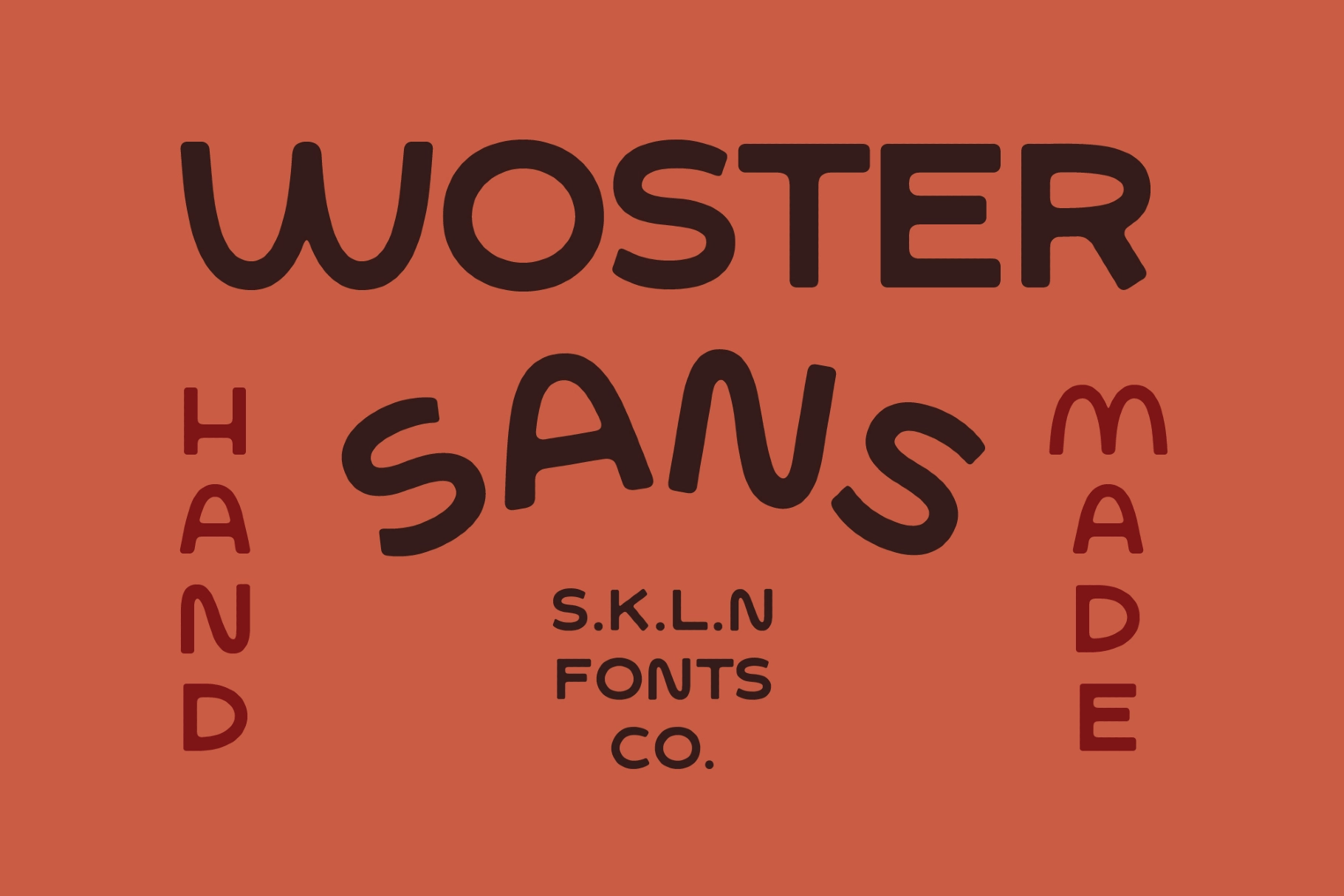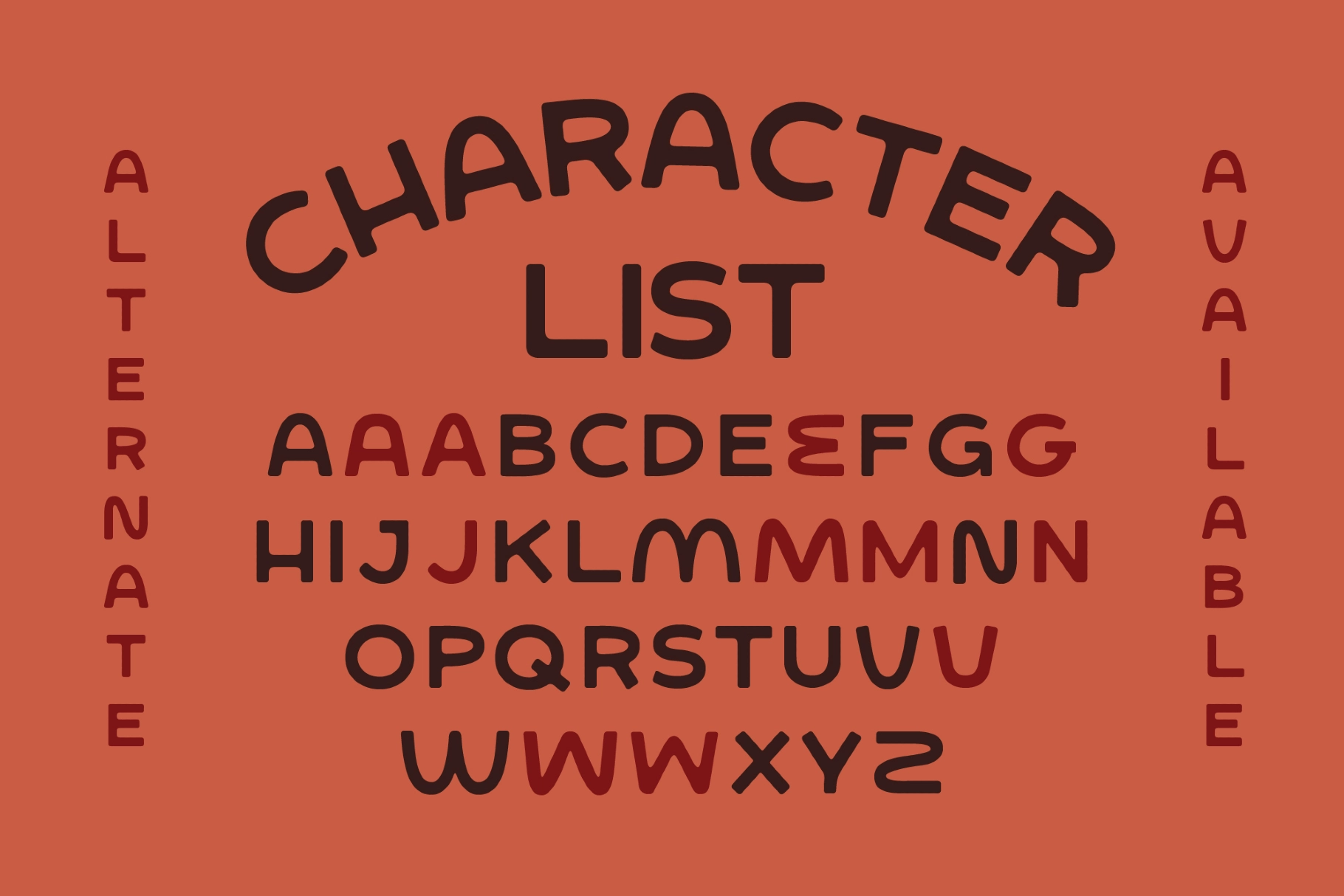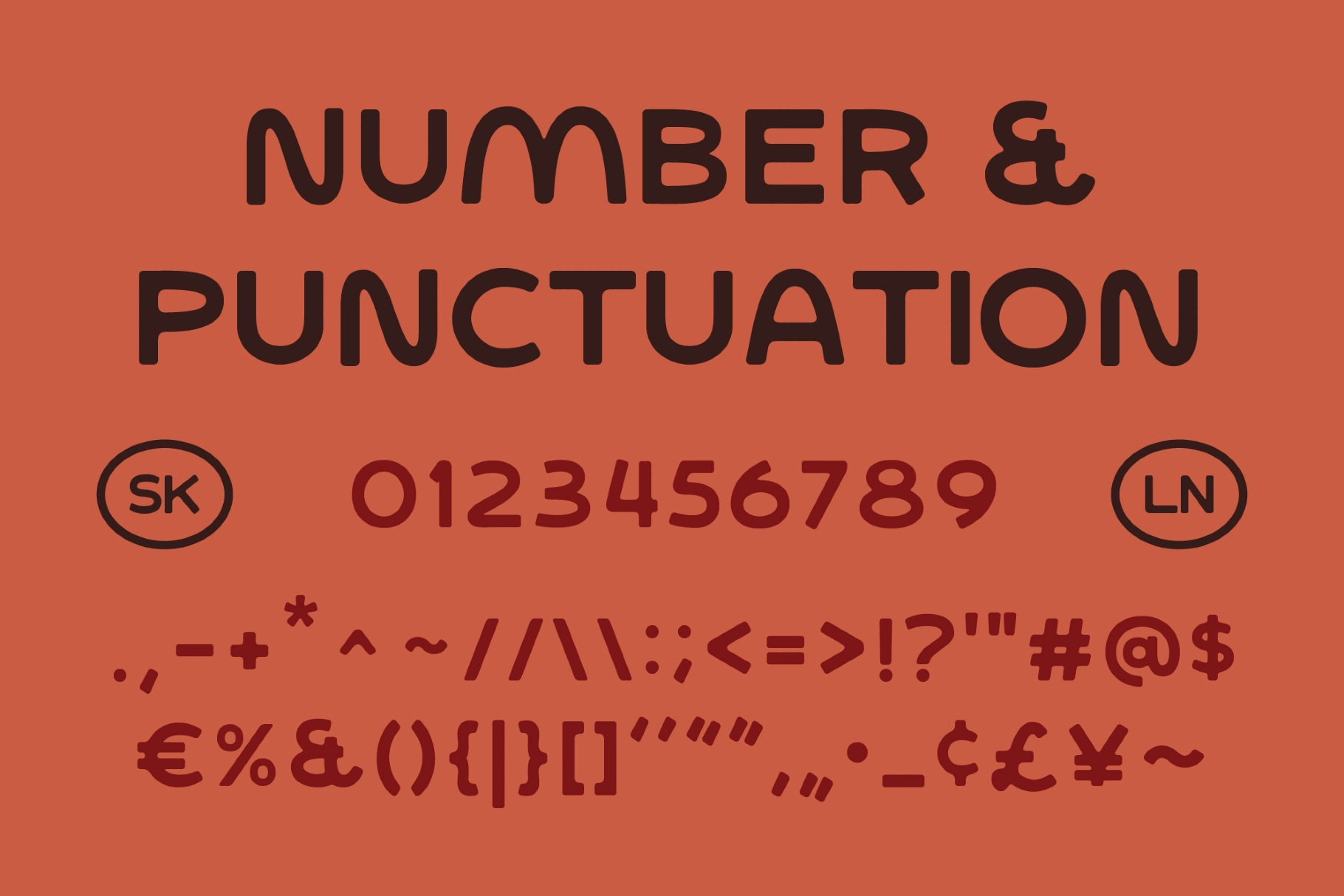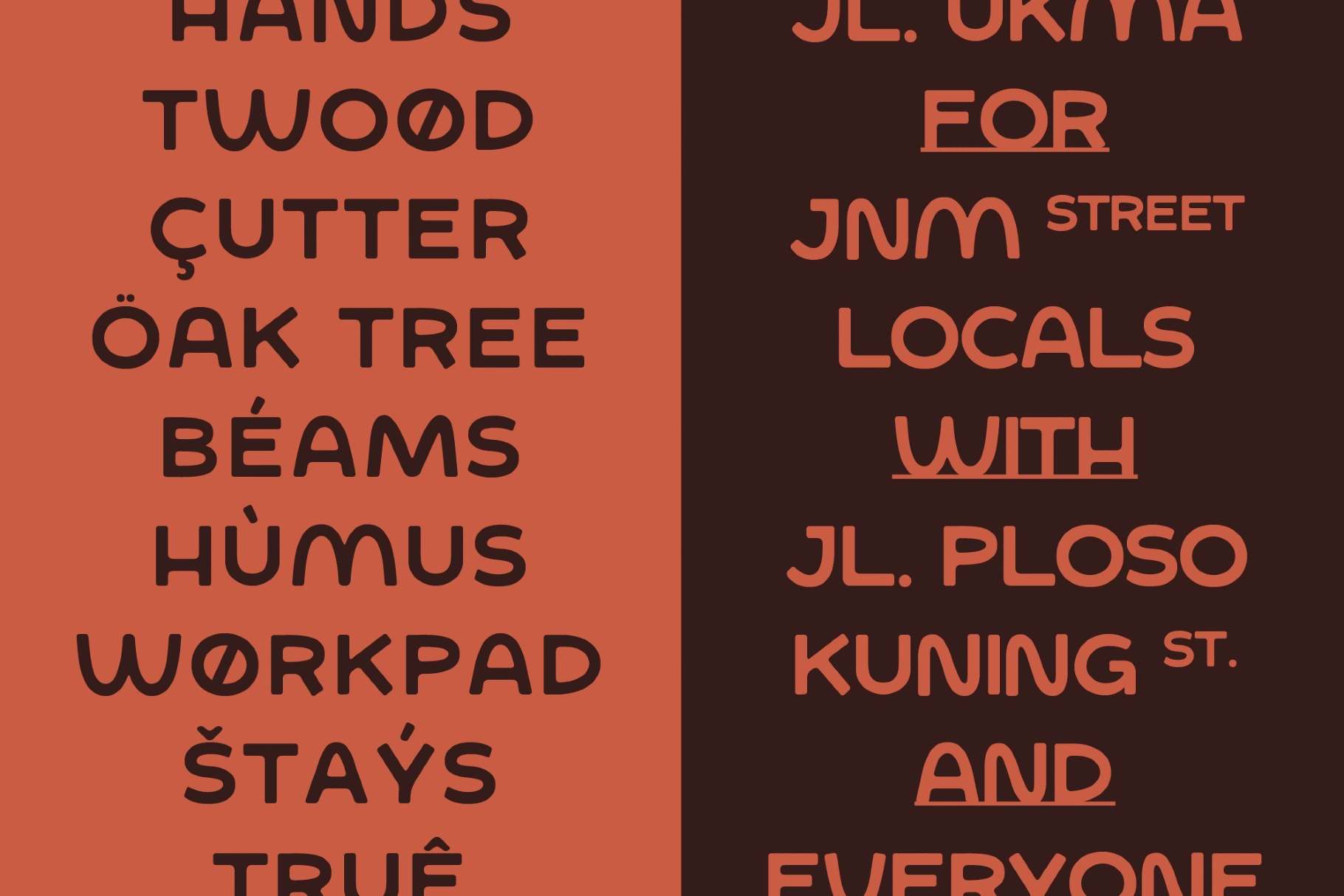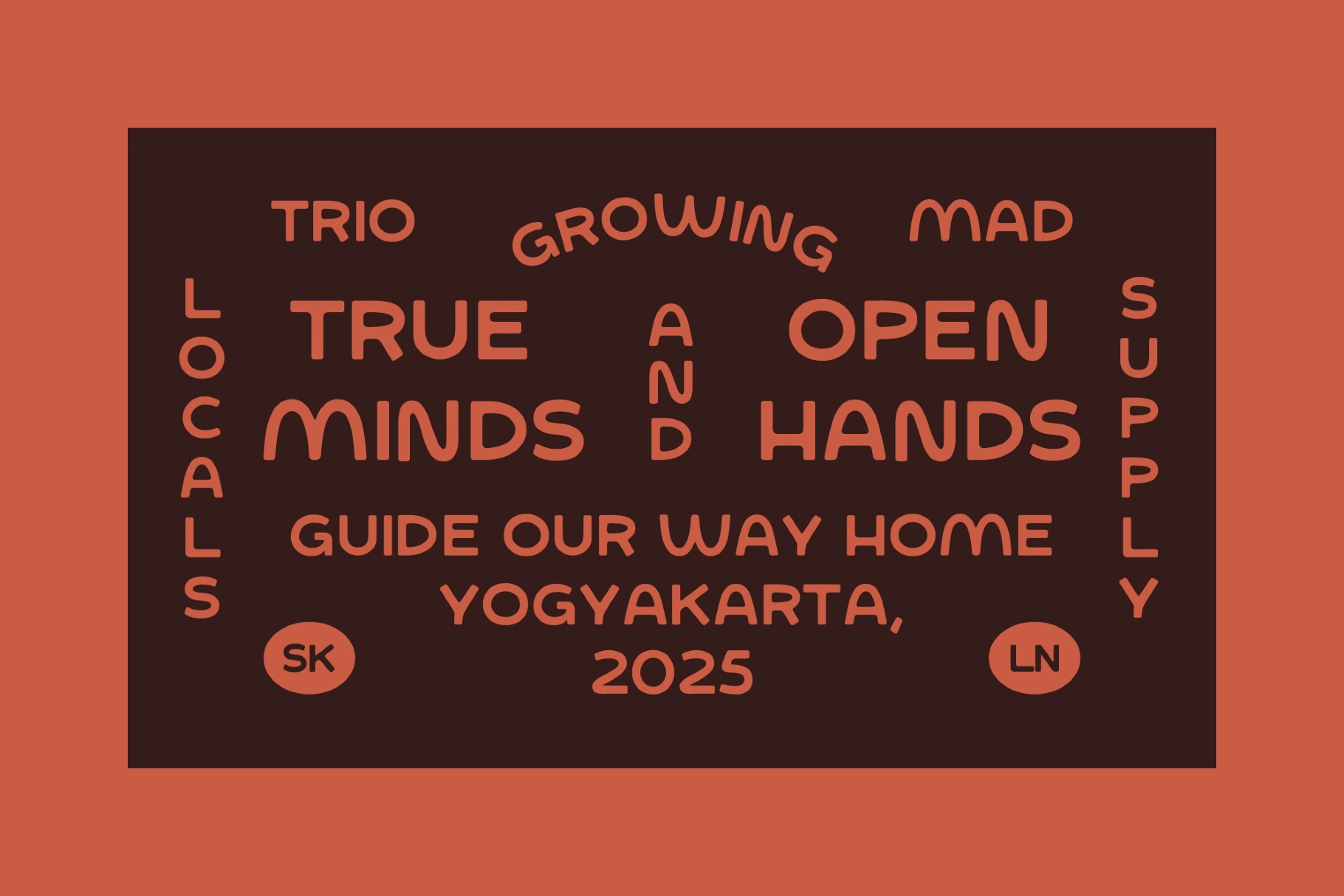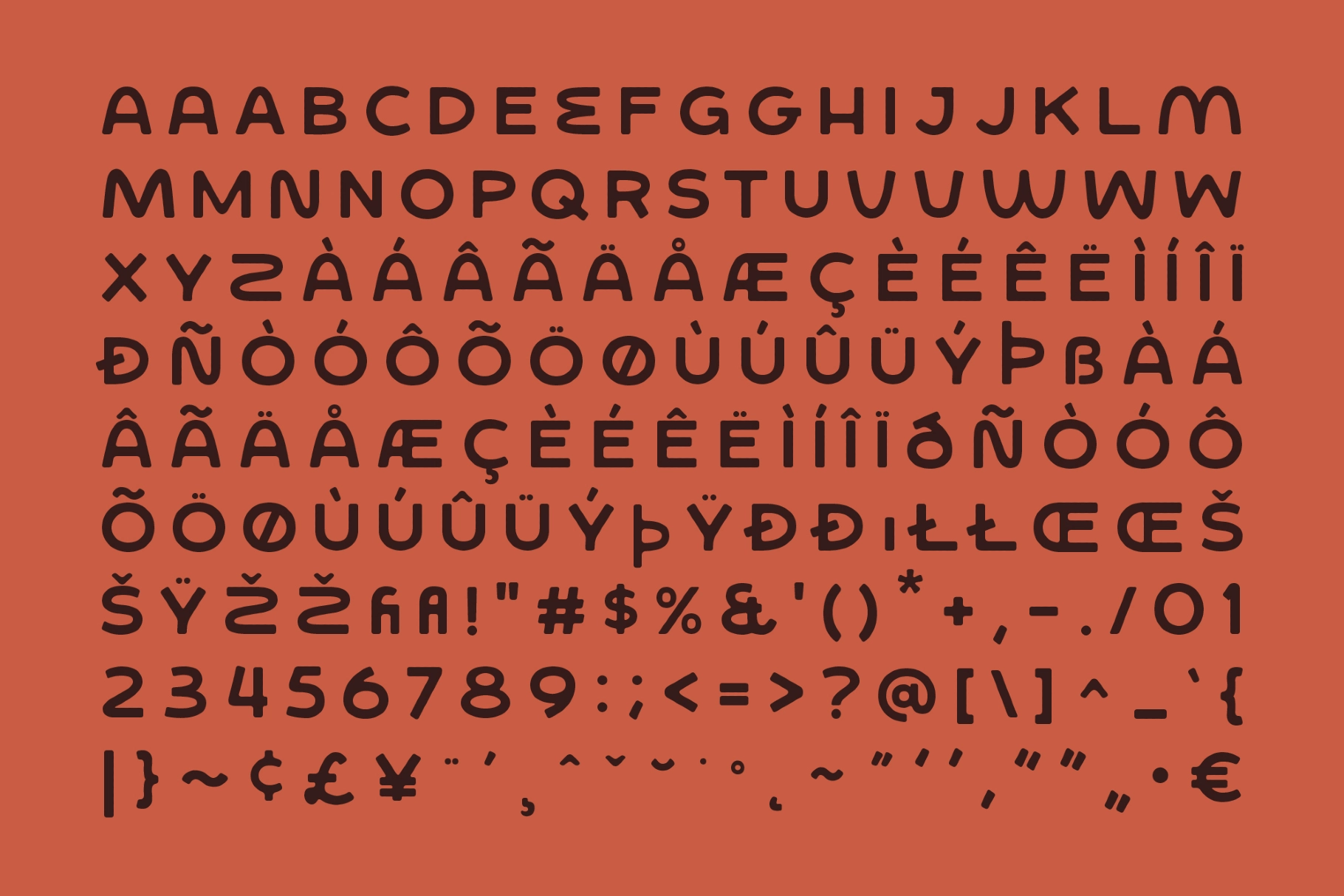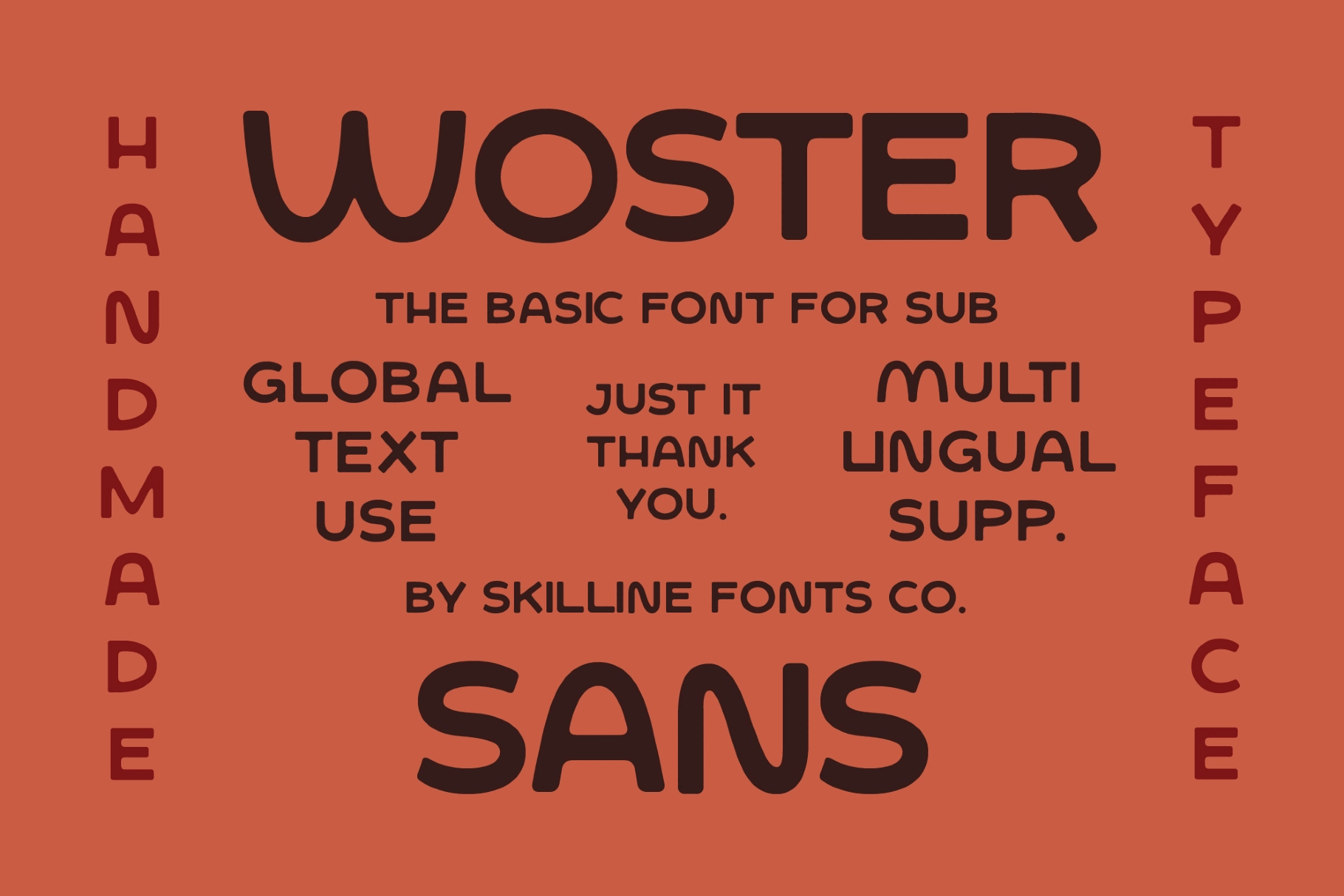
SFC Woster Sans
Woster Sans is a handmade display sans serif crafted with warm organic curves, playful character, and a friendly handcrafted feel. Its rounded shapes and smooth, natural flow bring a relaxed and expressive personality to any design, making it perfect for branding, packaging, posters, logos, children's projects, and modern creative layouts. Despite its quirky charm, Woster Sans remains clean and highly readable, delivering a balance of artistic style and practical usability.
Ideal Applications for Woster Sans:
- Playful, handcrafted branding projects
- Retro-inspired posters and editorial headings
- Apparel graphics and lifestyle merchandise
- Coffee shops, artisanal products, and homemade packaging
- Whimsical logos, signage, and creative storefronts
- Social media graphics with a warm, friendly vibe
- Children’s books, toys, and fun educational materials
- All Caps Typeface
- Handmade Letterforms
- Smooth Curves & Organic Shapes
- Basic Numerals & Punctuation Included